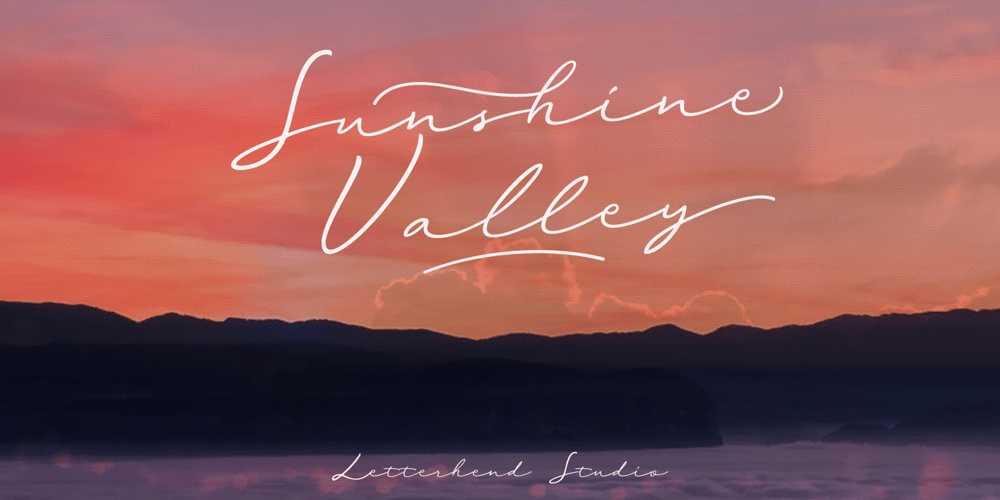
Sunshine Valley Font Family was designed by Hendry Juanda and published by Letterhend. Sunshine Valley contains 1 styles and family package options. Introducing, Sunshine Valley Script – a romantic monoline script. A simple hand writing with natural signature style. This type of font perfectly made to be applied especially in logo, and the other various formal forms such as invitations, labels, logos, magazines, books, greeting / wedding cards, packaging, fashion, make up, stationery, novels, labels or any type of advertising purpose.Features : uppercase & lowercase numbers and punctuation multilingual alternates and ligatures swashes PUA encoded We highly recommend using a program that supports OpenType features and Glyphs panels like many of Adobe apps and Corel Draw, so you can see and access all Glyph variations.